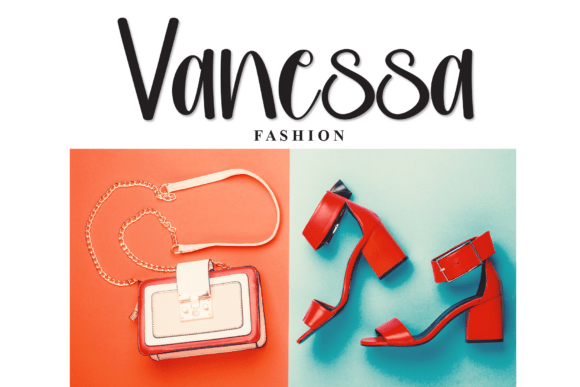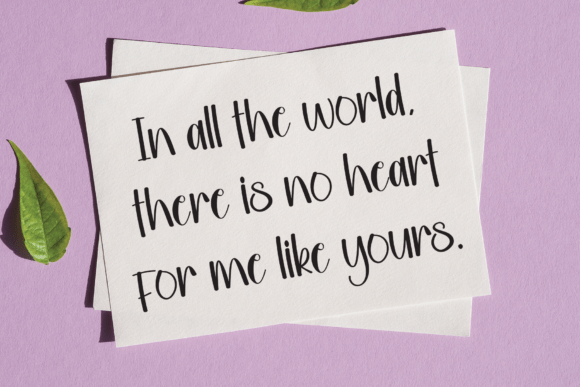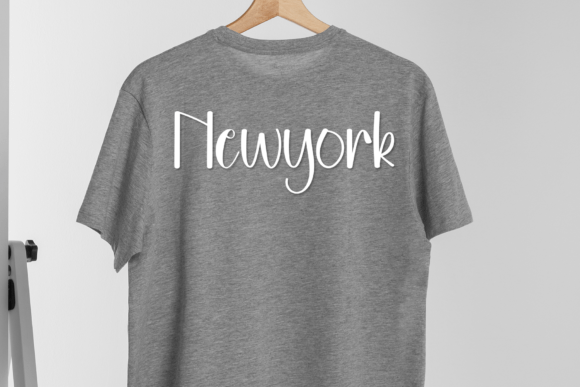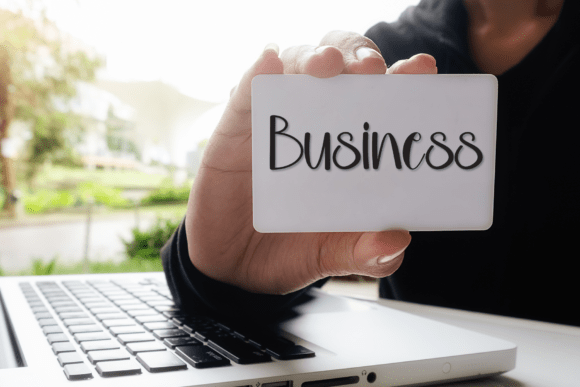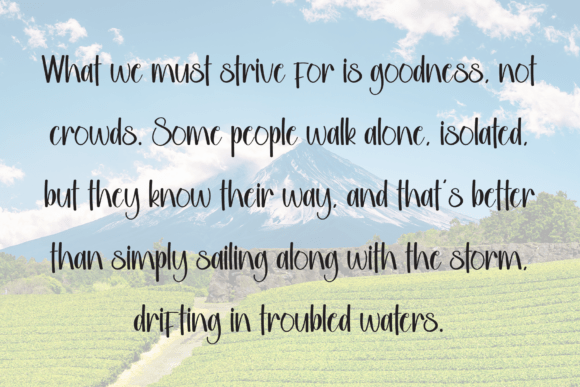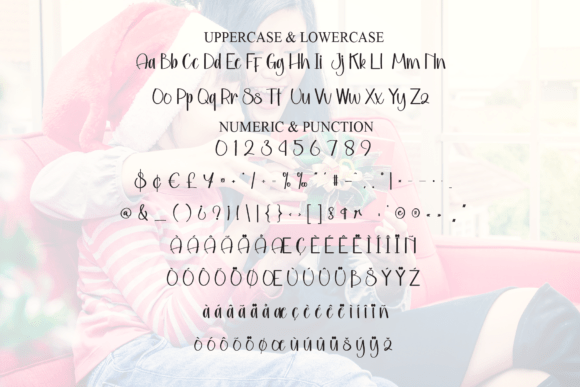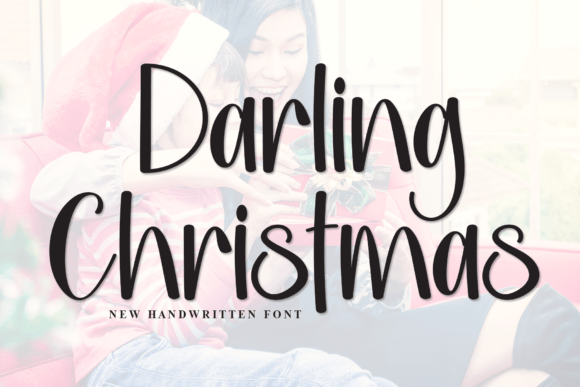
Introducing Darling Christmas Font: The Ultimate Choice for Whimsical Designs
Are you looking for a font that can add a touch of warmth, friendliness, and playfulness to your designs? Look no further than the Darling Christmas Font, a delightful and charming handwritten display font that is perfect for creating memorable wedding invitations, heartfelt cards, and countless creative designs.
A Font that Radiates Warmth and Friendliness
The Darling Christmas Font is designed to effortlessly radiate warmth and friendliness, making it the perfect choice for designers and crafters who want to create designs that are both fun and elegant. With its whimsical appeal and enchanting elegance, this font is sure to add a dash of personality to any project.
Wedding invitations and cards are special occasions that require a font that is both elegant and playful. The Darling Christmas Font is perfectly tailored for these types of designs, adding a touch of sophistication and whimsy that will make your creations stand out. Whether you’re designing a wedding invitation, a birthday card, or a holiday greeting, this font is sure to impress.
The Darling Christmas Font is not just limited to wedding invitations and cards. Its versatility makes it perfect for a wide range of creative designs, including:
• Holiday greetings and decorations
• Party invitations and flyers
• Blog and website headers
• Branding and packaging designs
What Makes Darling Christmas Font So Special?
So, what makes the Darling Christmas Font so special? Here are just a few reasons why designers and crafters love this font:
• Unique and Whimsical Design: The Darling Christmas Font features a unique and whimsical design that is sure to add a touch of personality to any project.
• Handwritten Display Font: This font is a handwritten display font, making it perfect for creating eye-catching headlines and titles.
• Easy to Read and Use: Despite its whimsical design, the Darling Christmas Font is easy to read and use, making it perfect for both digital and print designs.
• High-Quality and Versatile: This font is high-quality and versatile, making it perfect for a wide range of creative designs.
How to Use Darling Christmas Font in Your Designs
Using the Darling Christmas Font in your designs is easy. Here are a few tips to get you started:
• Pair it with Other Fonts: Pair the Darling Christmas Font with other fonts to create a unique and eye-catching design.
• Experiment with Colors and Textures: Experiment with different colors and textures to add depth and interest to your design.
• Use it for Headlines and Titles: Use the Darling Christmas Font for headlines and titles to add a touch of whimsy and personality to your design.
In conclusion, the Darling Christmas Font is a delightful and charming handwritten display font that is perfect for designers and crafters who want to add a touch of warmth, friendliness, and playfulness to their designs. With its whimsical appeal and enchanting elegance, this font is sure to make your creations stand out. Whether you’re designing wedding invitations, cards, or creative designs, the Darling Christmas Font is the ultimate choice for adding a dash of personality and whimsy to your projects.